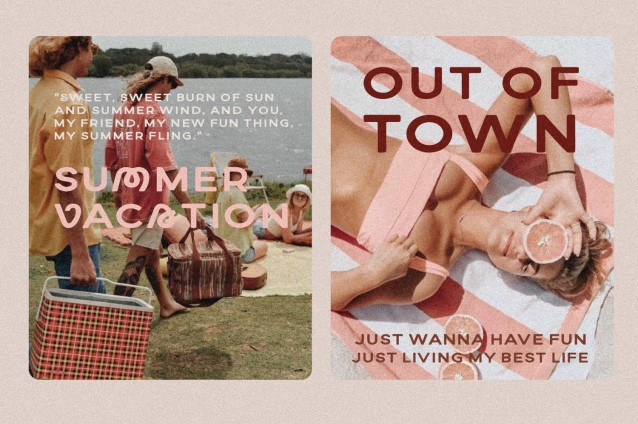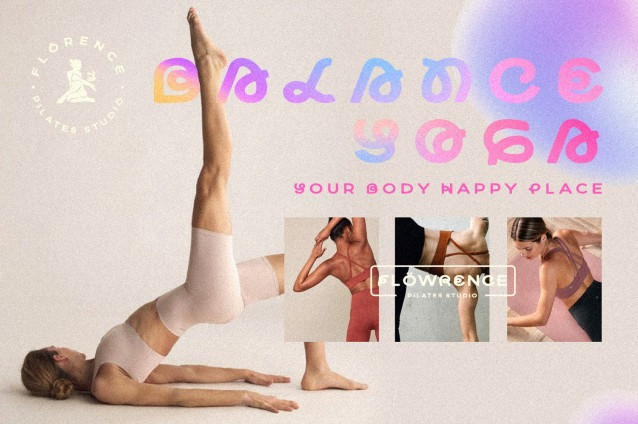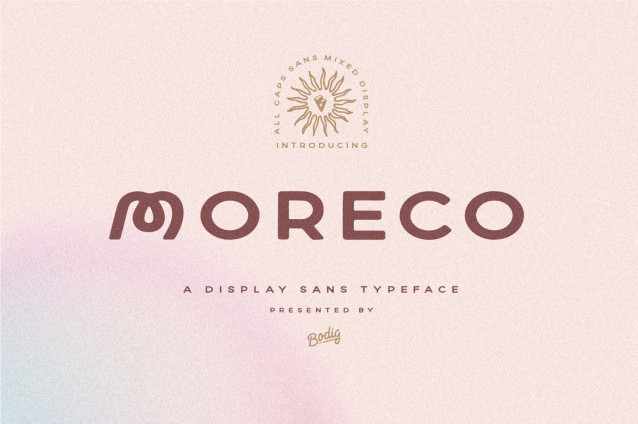
Moreco Font
Moreco Font is a experimental unique sans flow quirky typeface all caps with stylish curve and handmade font visual design, come to help your project design make more stunning and attractive. This is a perfect playful font for any project design such as logos, watermark, branding project, product design, label, business project etc, This product was created to help you make your digital images even more beautiful and unique making this font stand out.